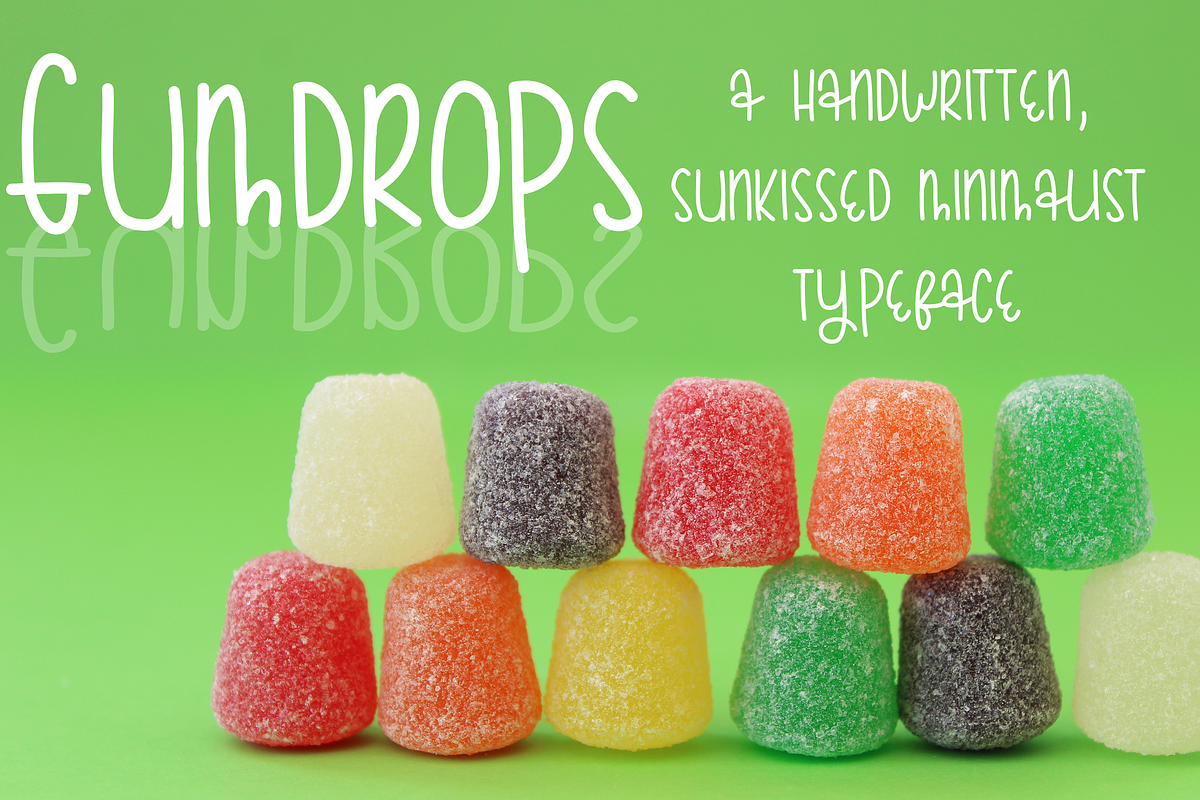
Gumdrops Font Free Download is a sweet, playful typeface bursting with bubbly personality. With its rounded letterforms and candy-like charm, this font is perfect for kids’ designs, birthday invitations, dessert packaging, toy branding, and any project that needs a pop of sugary fun.
Gumdrops Font Free Download captures the joy of childhood with its soft curves, cheerful bounce, and friendly readability. Whether you're creating cute stickers, colorful posters, or whimsical social media graphics, this font makes everything feel lighter, brighter, and a whole lot more fun.
It pairs beautifully with pastel color palettes, playful illustrations, and hand-drawn icons. Ideal for crafters, teachers, designers, and anyone who wants to spread a little sweetness in their work.
Add a sprinkle of joy and a scoop of charm to your typography with Gumdrops—where every letter feels like a treat!